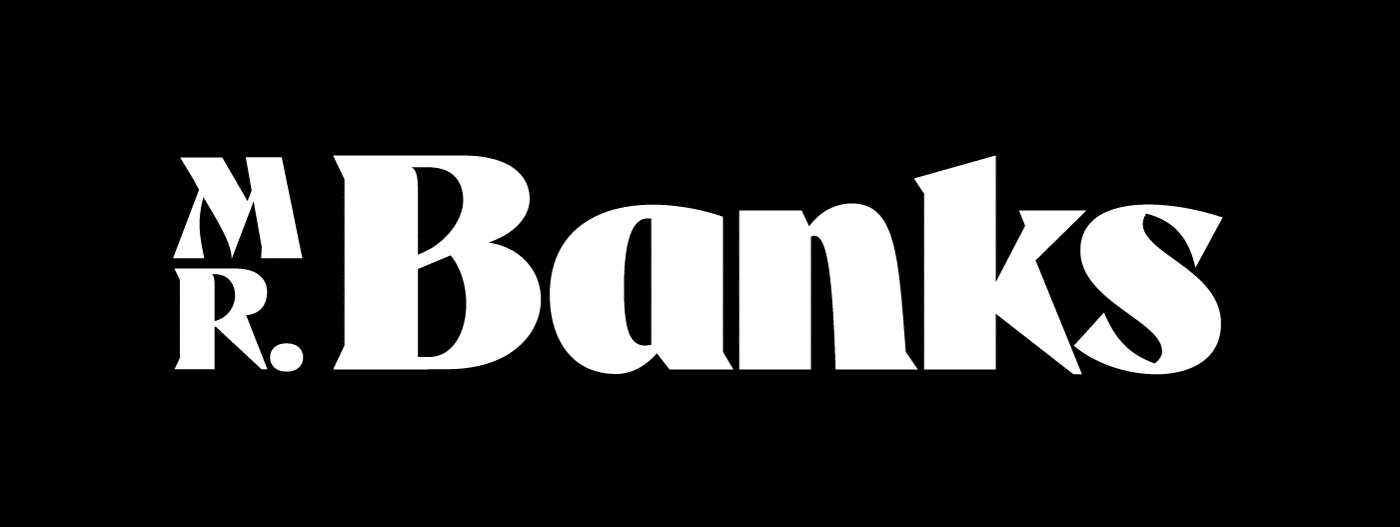
Mr. Banks Serif
This is a follow up for Mr. Banks Stencil. We created the uncut version and extended the family into 5 weights. You get the variable file with the full desktop family.
Opentype Features, Discretionary Ligatures, Stylistic Alternates